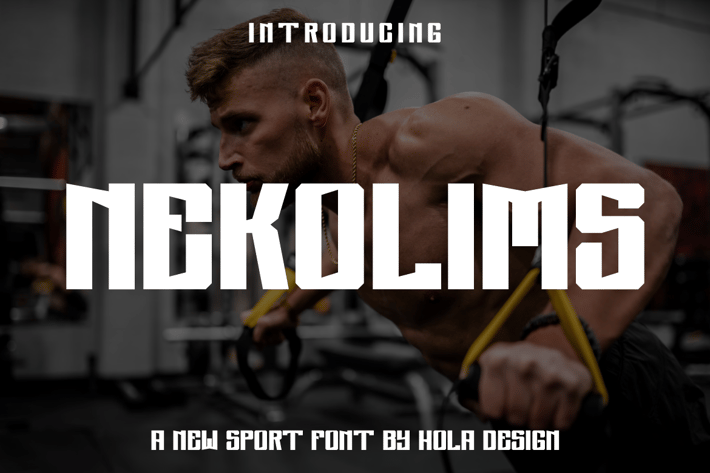
Nekolims Sport Font
Nekolims Sport Font Font is unique . Ready to use for your design like labeling, movie sceen, poster, movie title, gigs, album covers, logos, and much more.